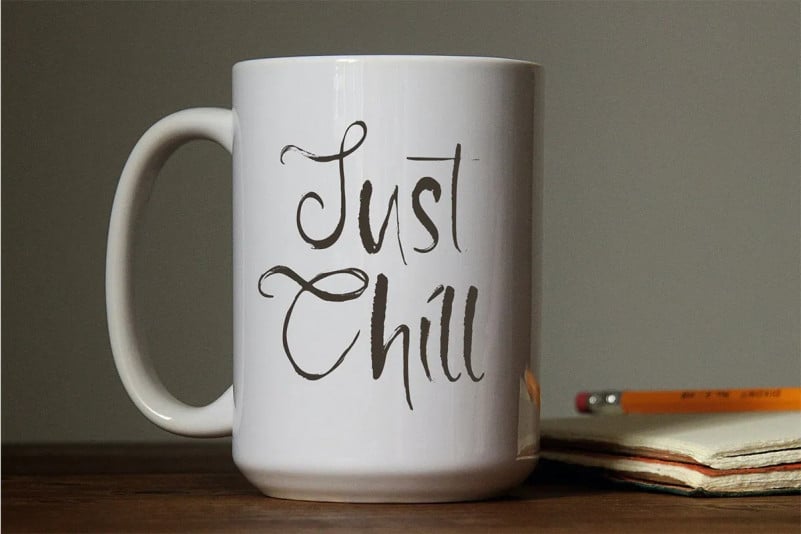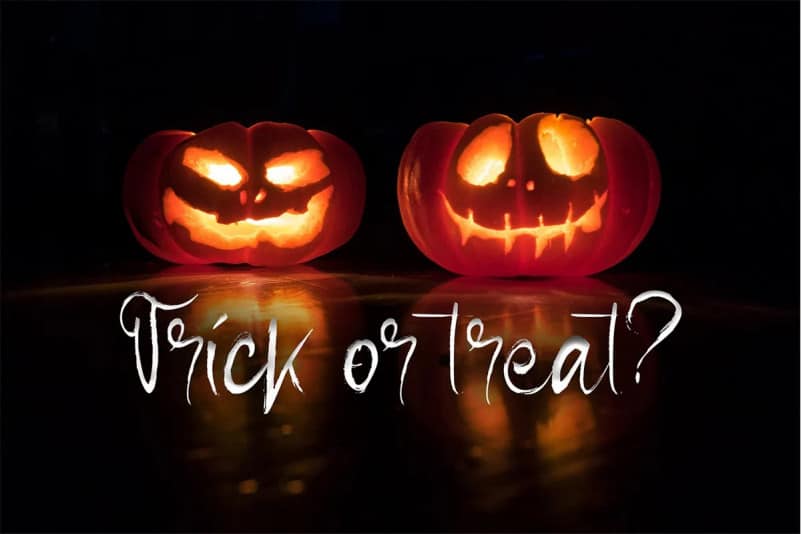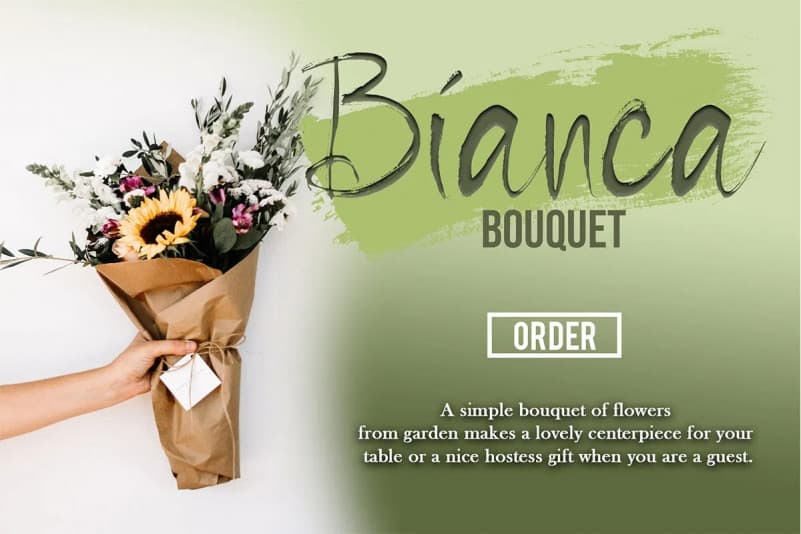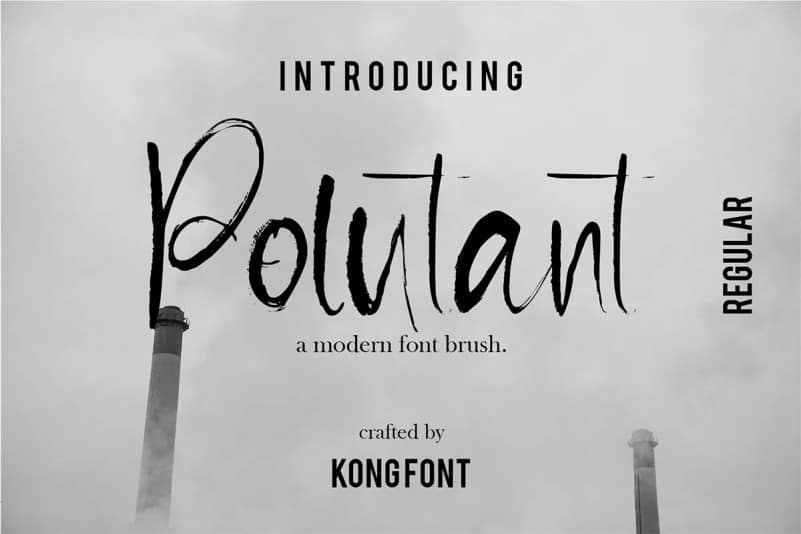
Pollutant Brush Font is a sweet and friendly handwritten dry brush typeface. Its natural and unique style makes it incredibly fitting to a large pool of designs. Such as luxury logo branding, editorial design, stationery design, Elegant Modern Fashion, Salon Beauty, feminine advertising design, blog / website design, card invitation, art quote, home decor, book/cover title, special events ( wedding, birthday, etc ), and any more.
Pollutant